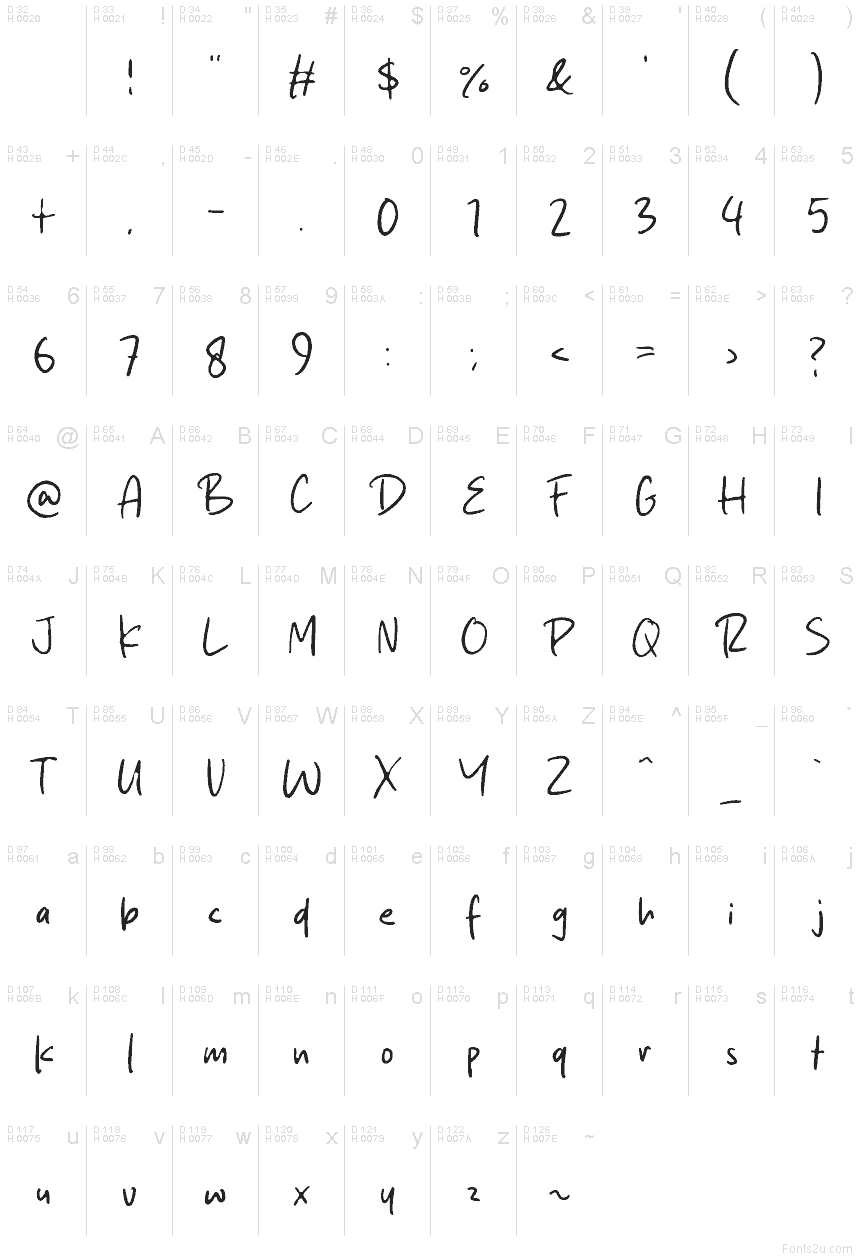
Classic Rise
Classic Rise font by MJType is a free handwritten font that captures a cursive and approachable style. With a casual rhythm and signature-like feel, it balances relaxed appearances with a modern aesthetic. This fusion of elegance and informality makes it ideal for designs that wish instant appeal.
Classic Rise supports branding ideas, logos, merchandise design, products promotion ads, presentation materials, magazine covers, social media posts (Instagram banners), invitations for special events like weddings or birthdays, cheerful posters/cards among other ideas. Available for free download.